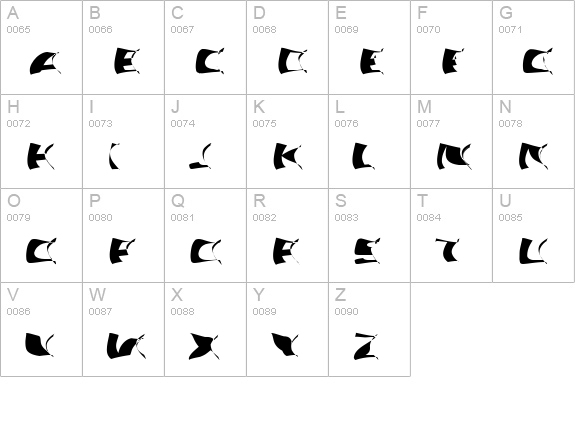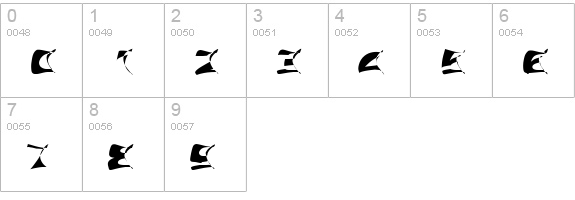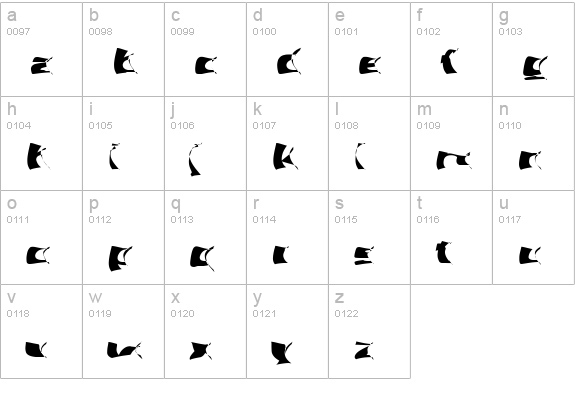
Artsee Font Details
Artsee font is a visually captivating typeface that brings a unique and artistic touch to any design project. With its elegant curves and stylish accents, Artsee font is perfect for adding a touch of sophistication to your creations. Whether you're working on a branding project, website design, or any other creative endeavor, Artsee font is sure to make a statement. The best part? Artsee font is available for free download at FontsMarket.com. This means you can easily access this stunning font and use it in your projects without any cost. Don't miss out on the opportunity to enhance your designs with the beauty of Artsee font - download it today and let your creativity shine!